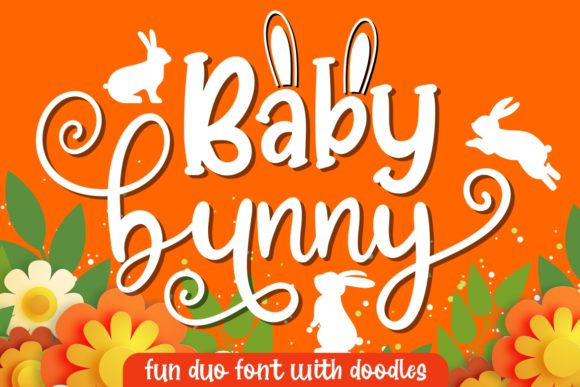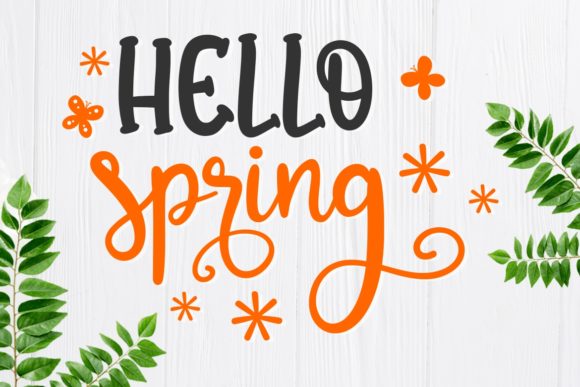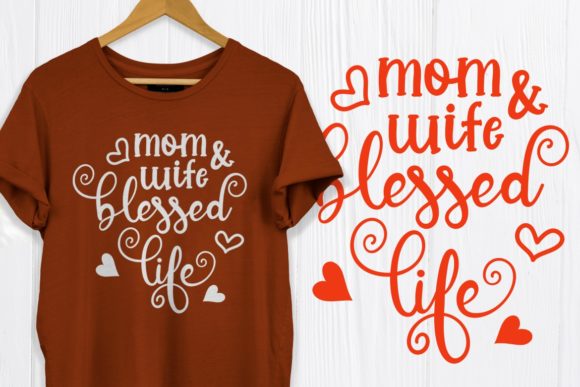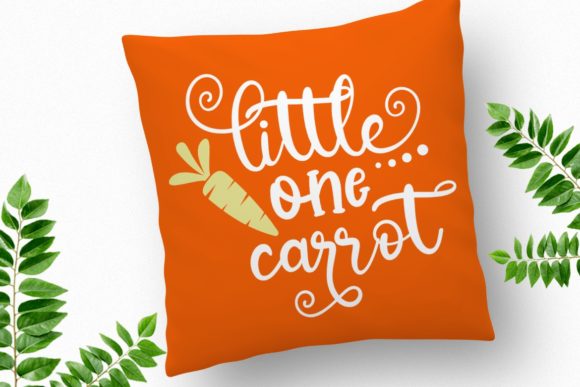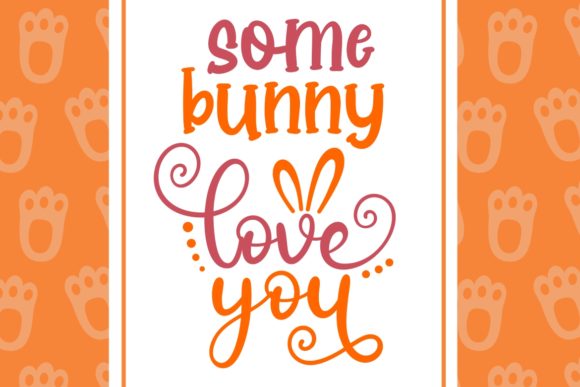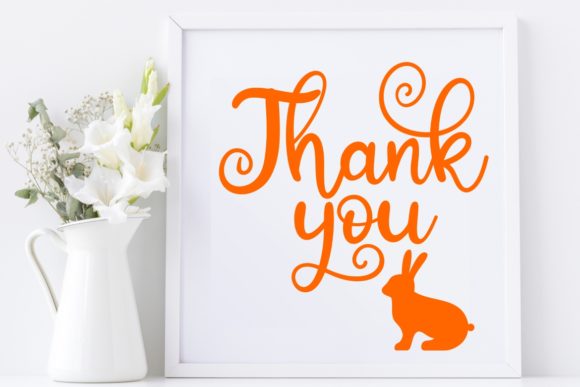
Baby Bunny Font
About Baby Bunny Font
Baby bunny is a fun and cute duo font, script and sans. Combining these two fonts on your next design will give a friendly and unique feel. It also features sweet doodles that will take your crafting projects to the next level!